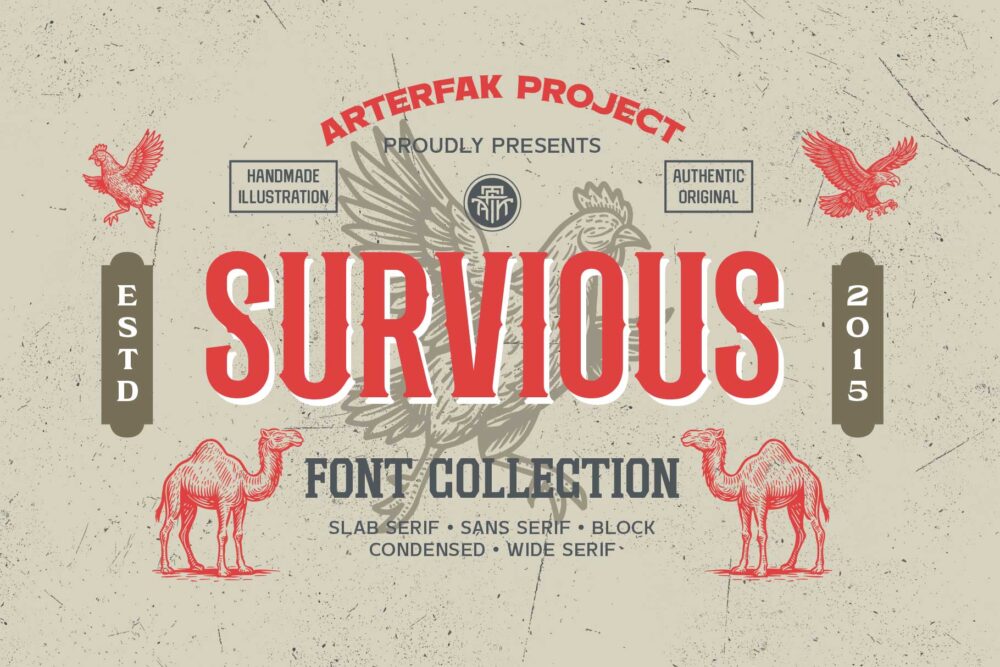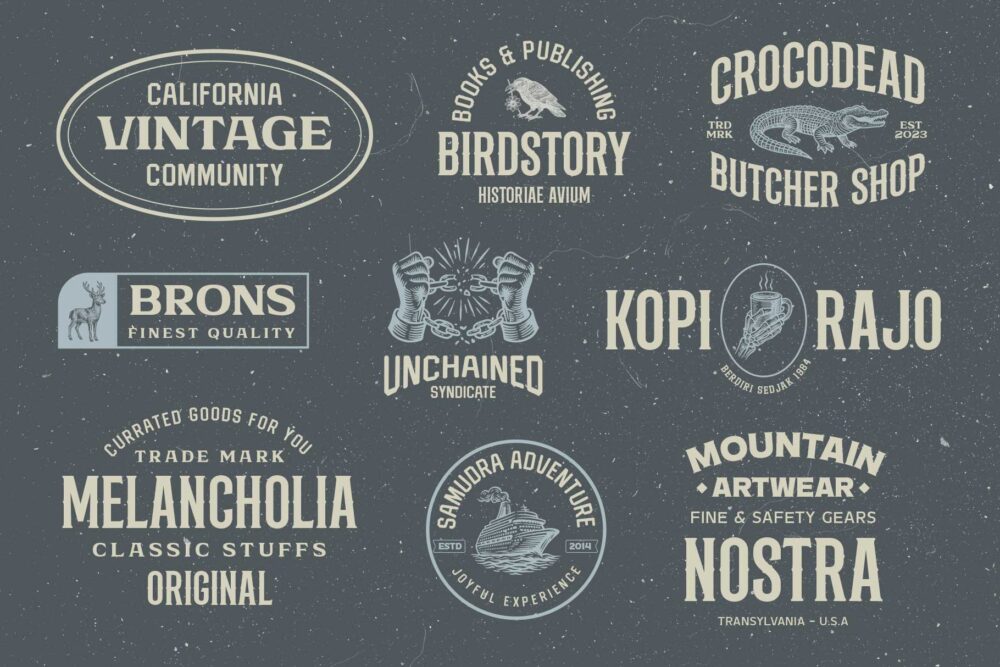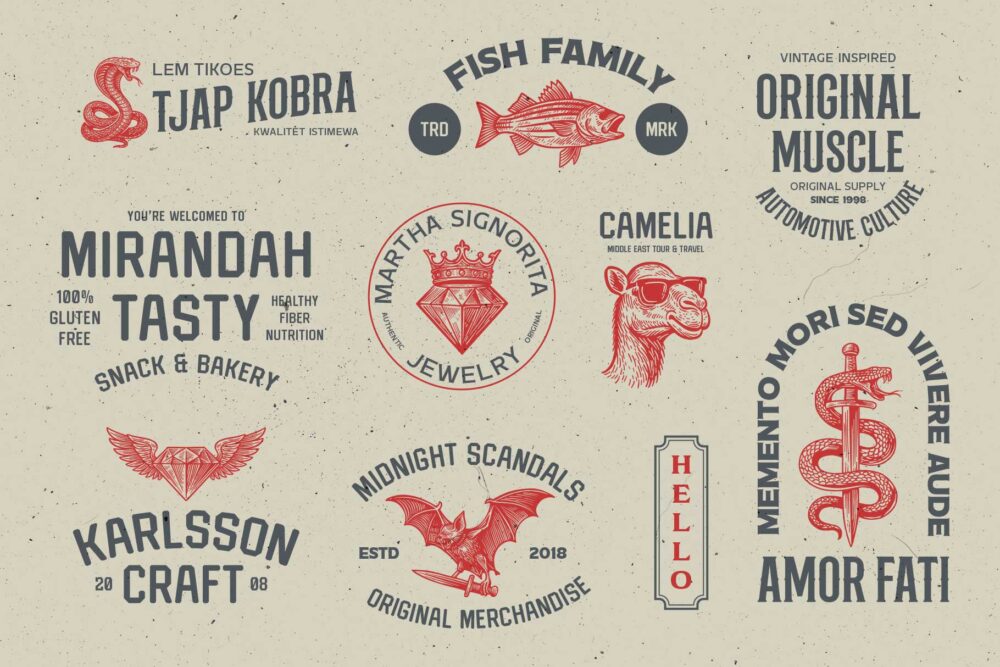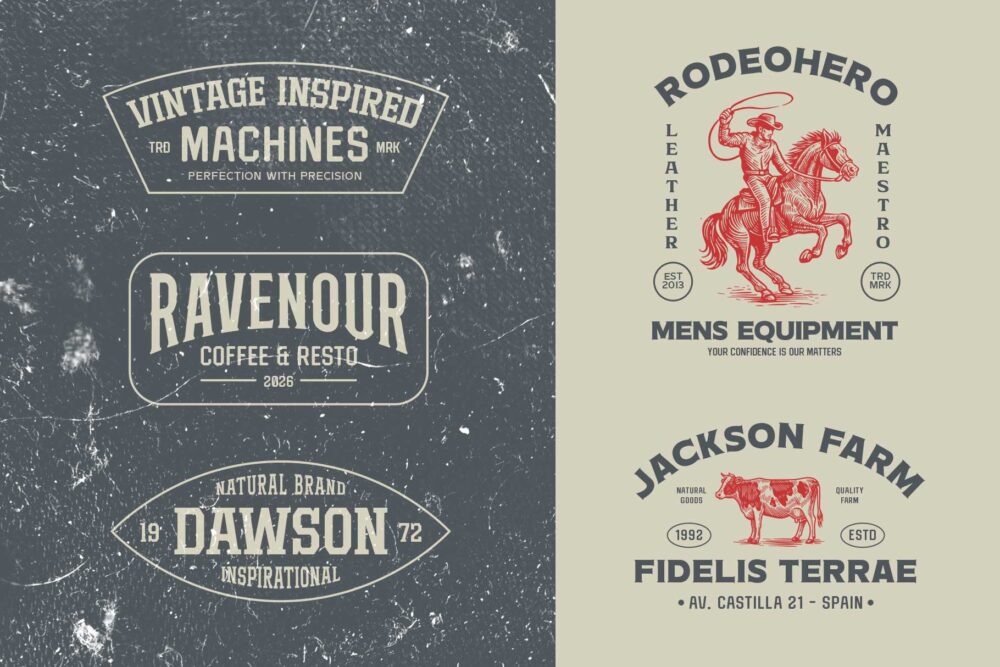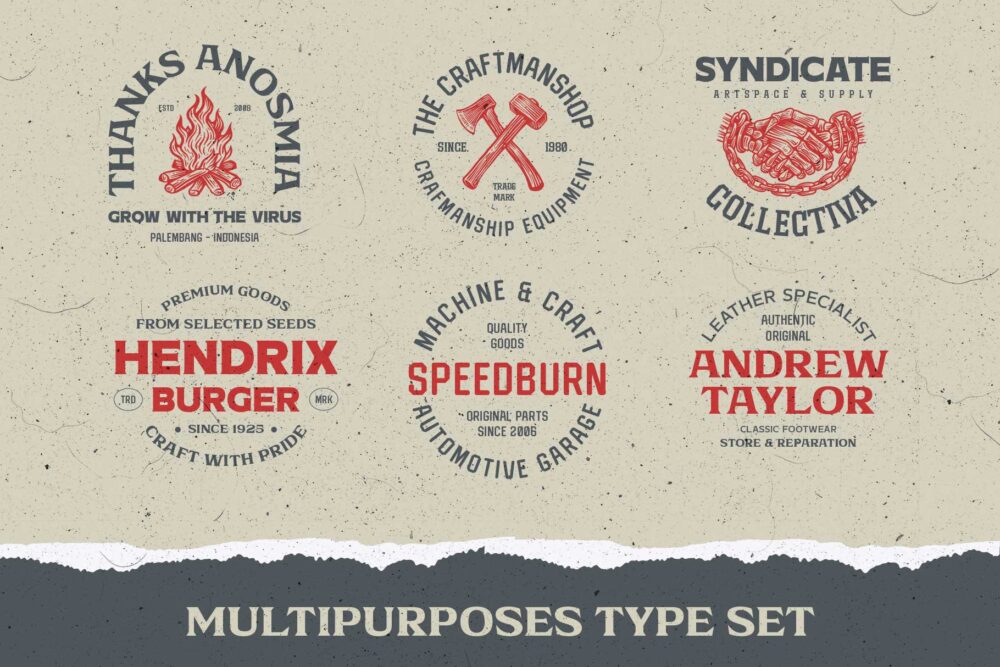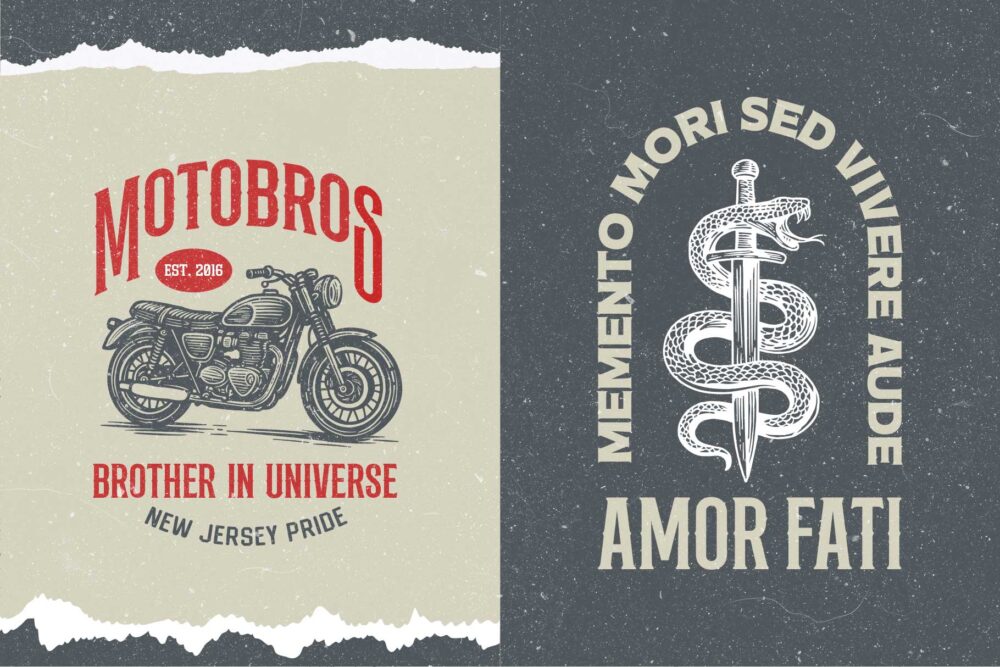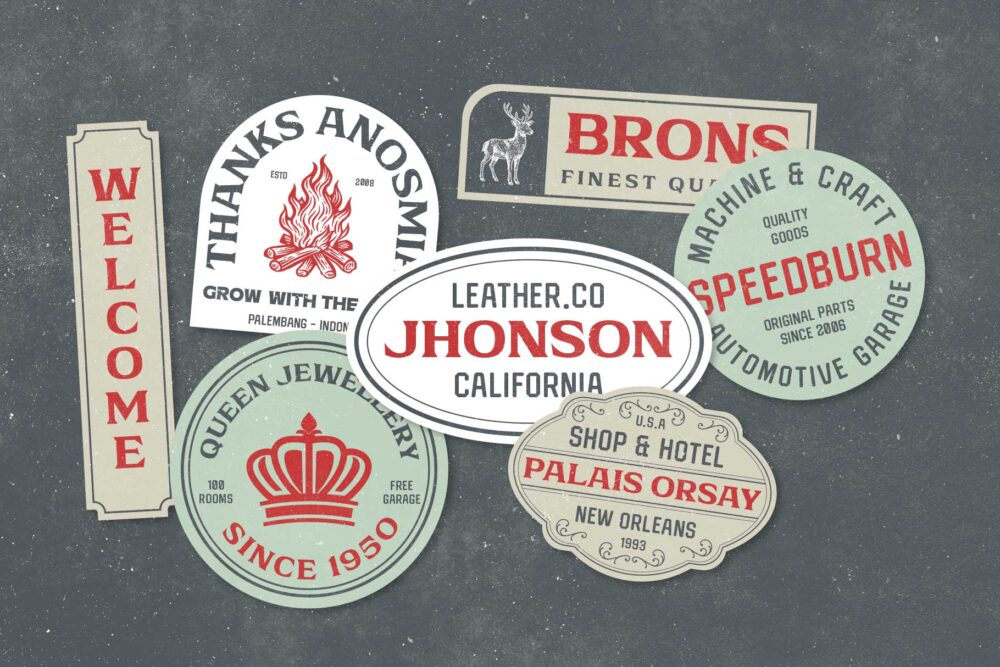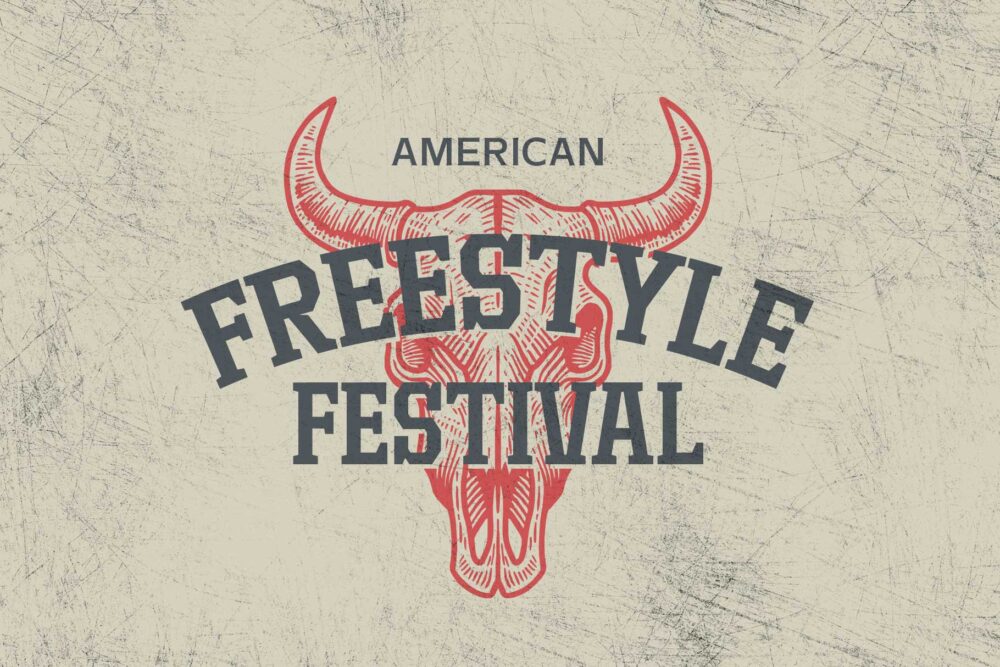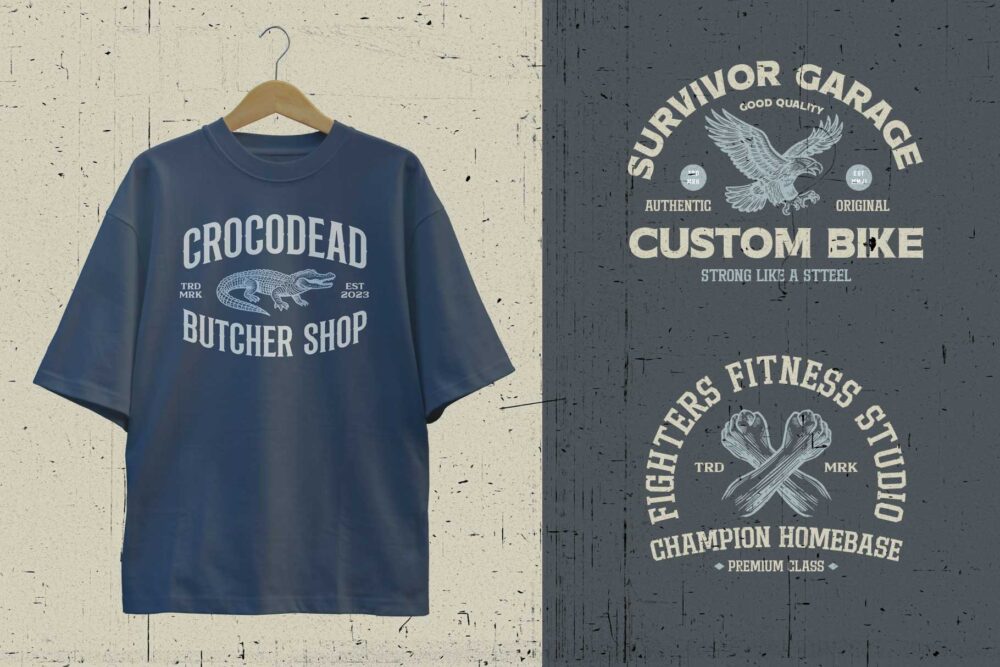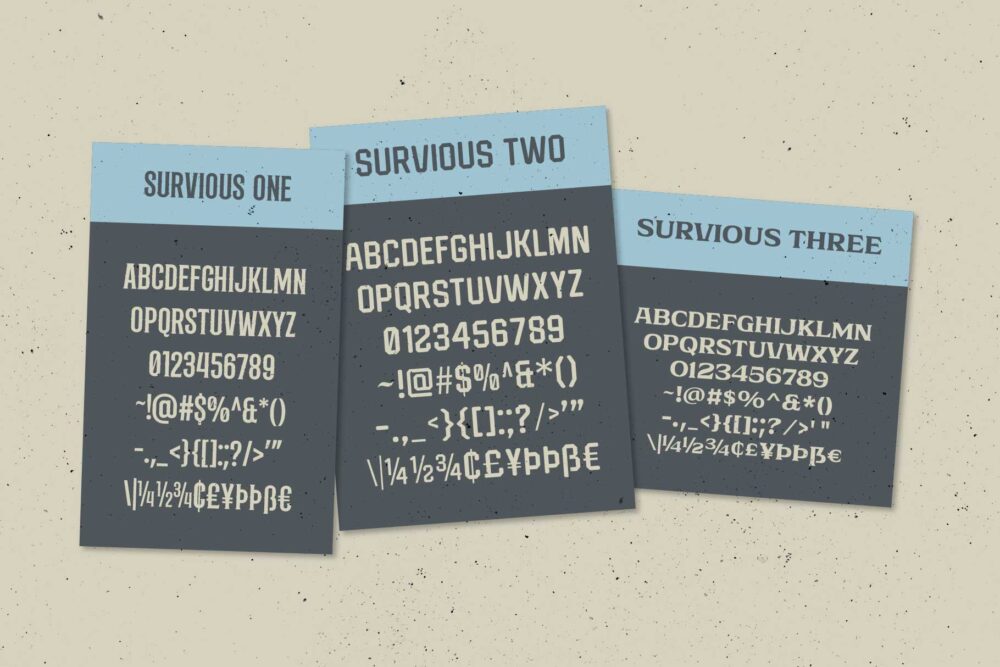
Introducing Survious – Vintage Font Set. Inspired by vintage labels and old-school illustrations, this type family blends classic industrial style with strong versatility. It includes Sans Serif, Slab Serif, Wide Serif, Condensed Serif, Decorative, and Block styles that work seamlessly together.
Designed with bold character and timeless appeal, Survious offers a solid combination of primary and secondary fonts for clear and dynamic typography. It also comes with vintage-style illustrations to enhance your designs effortlessly.
Perfect for labels, posters, packaging, sign painting, vintage logos, and apparel. Survious pairs beautifully with illustrations, badges, and icons—making it easy to create strong, nostalgic visuals with a modern edge.
- All capitals character set
- Numbers
- Symbols & punctuation
- Stylistic alternates
- Multilingual support